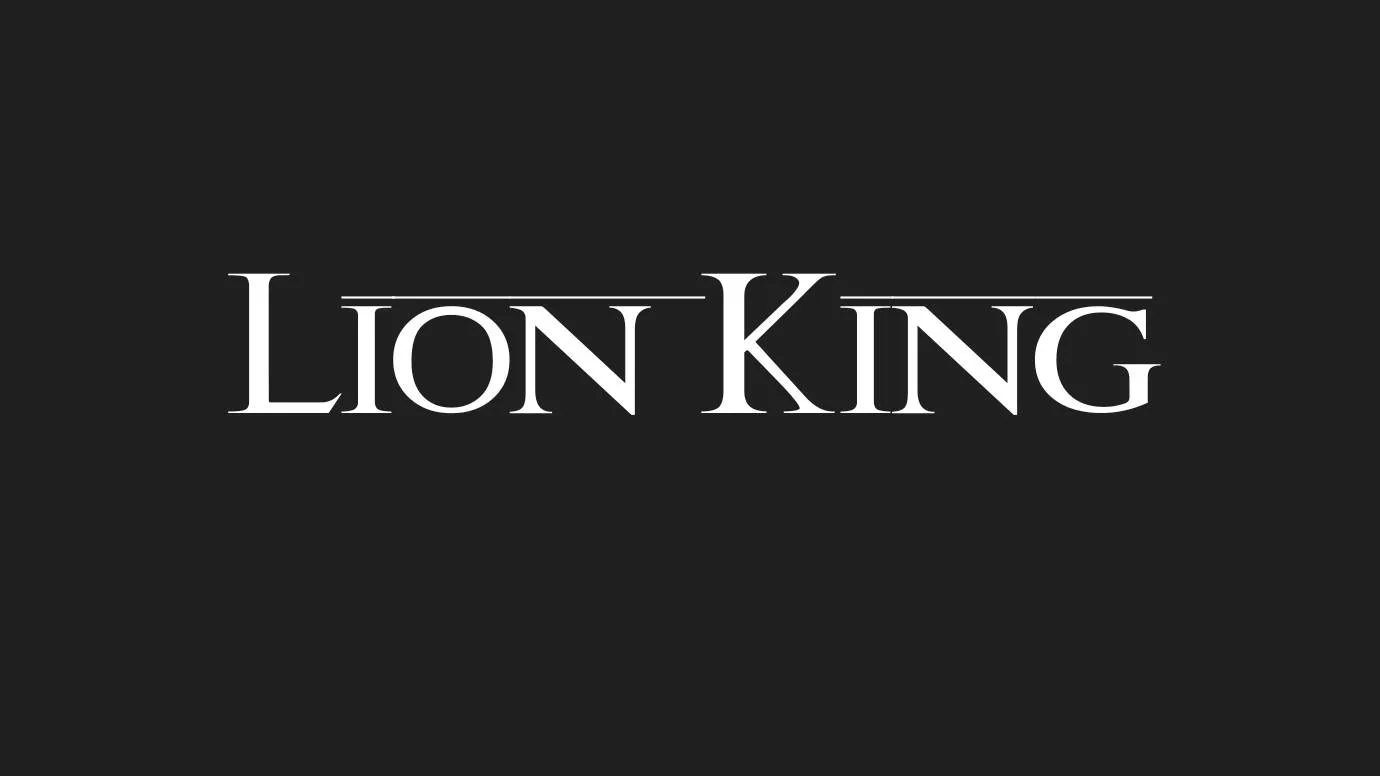
Lion King Font Family a very gorgeous typeface for our audience named Lion King Font. This awesome typeface falls in the category of the basic serif family of fonts. Melanie Blanco is the real designer of this typography and she is the main head of External Communications, Americas at MSCI Inc.
The Marlowe font is an alternative to this typeface and has the same characters and glyphs. Here, a text converter tool which is known as a generator tool is suitable for the conversion of simple text to graphics.
Lion King Font